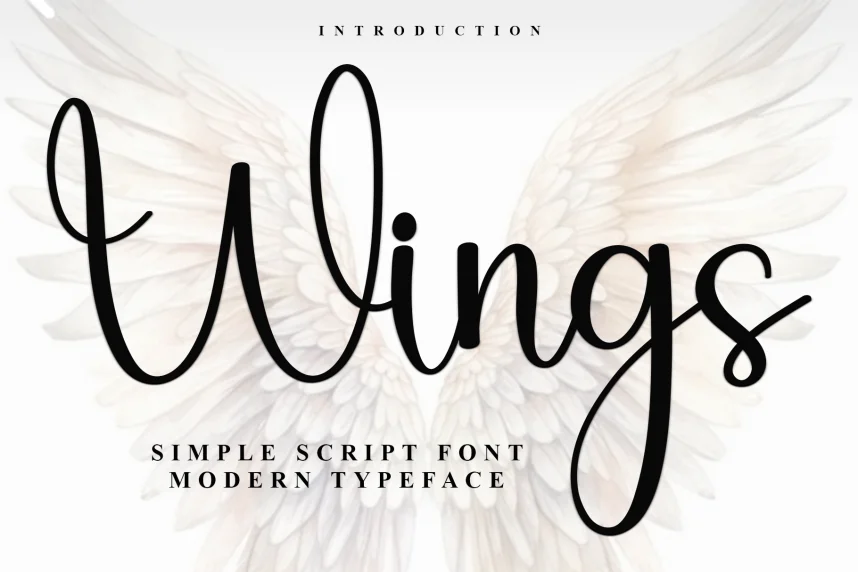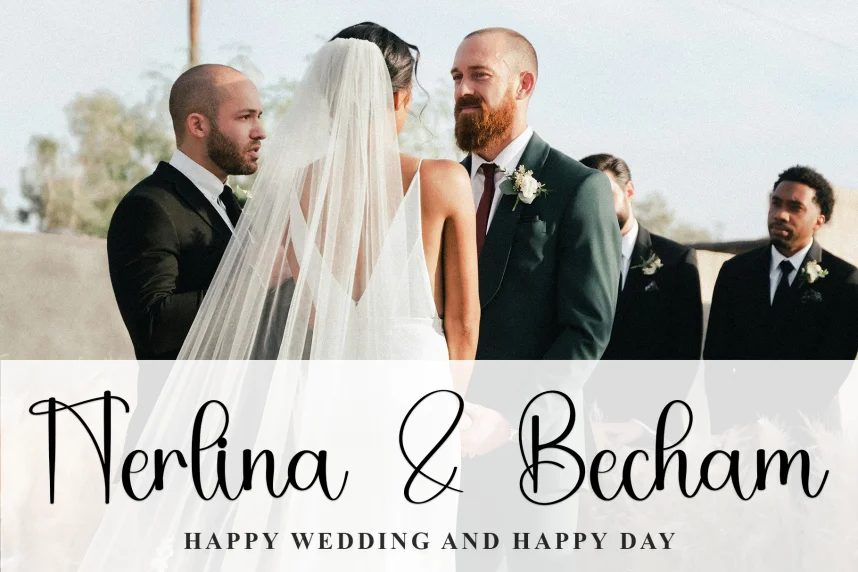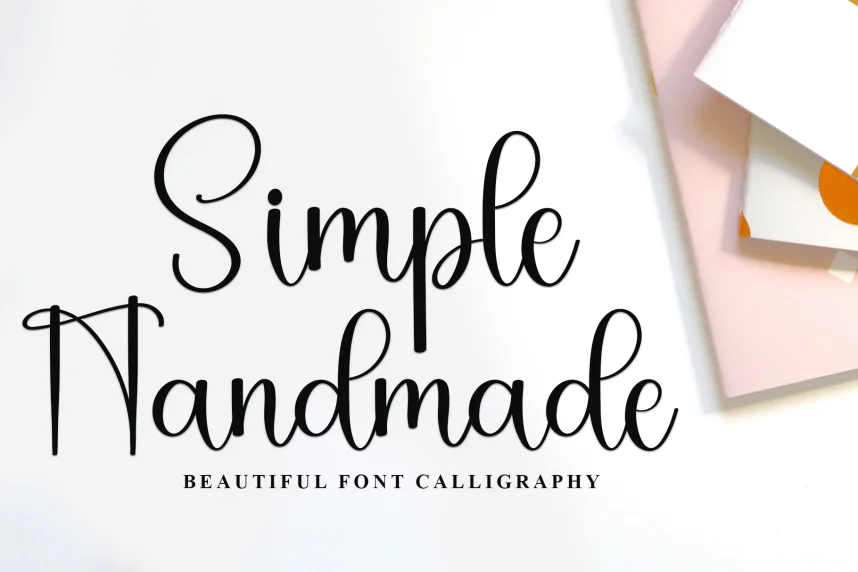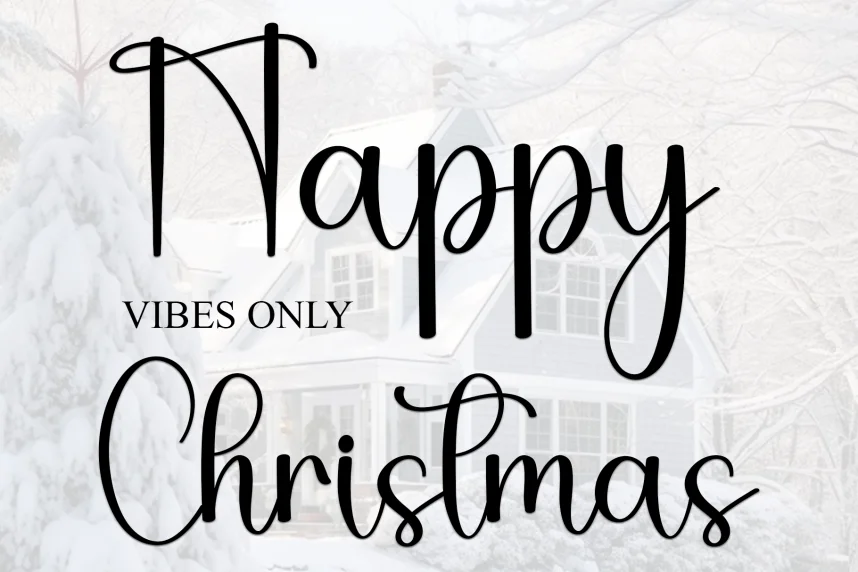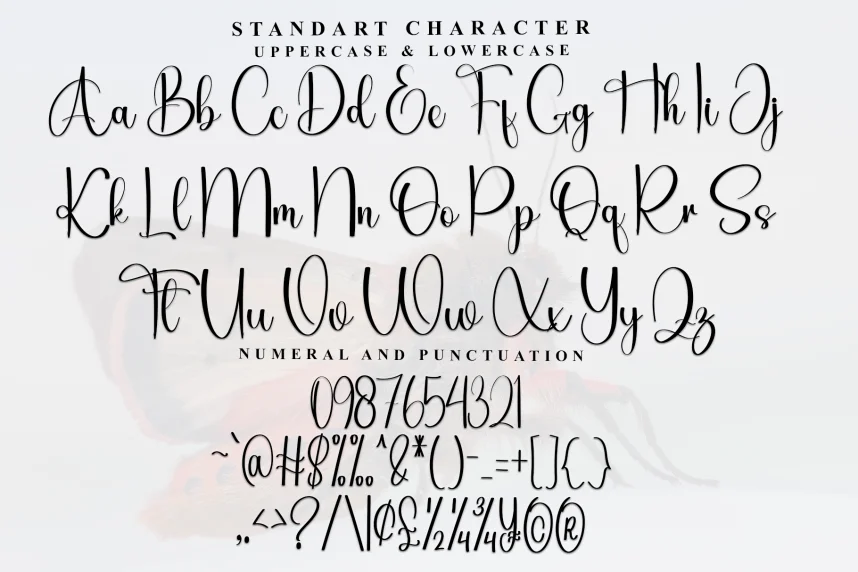
Wings Style Script Font addresses the challenge of adding an elegant, handwritten feel to designs while maintaining readability and clarity. It is perfect for sophisticated branding and personal applications.
Wings Style is a script font with refined, flowing strokes, smooth transitions, and consistent contrast. Its delicate curves give it an air of elegance, making it ideal for upscale designs and invitations.